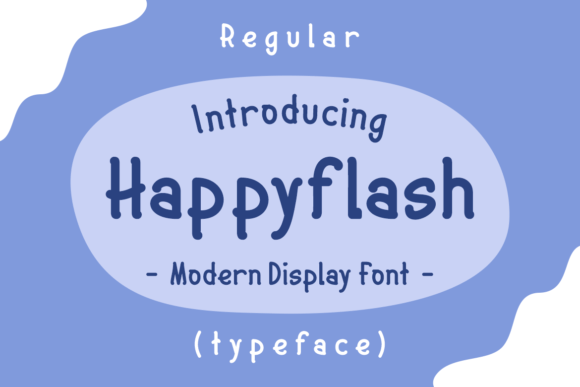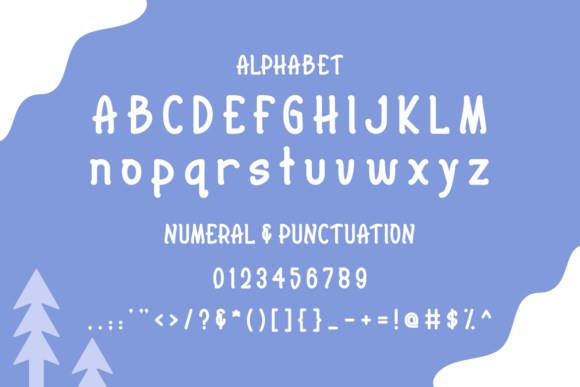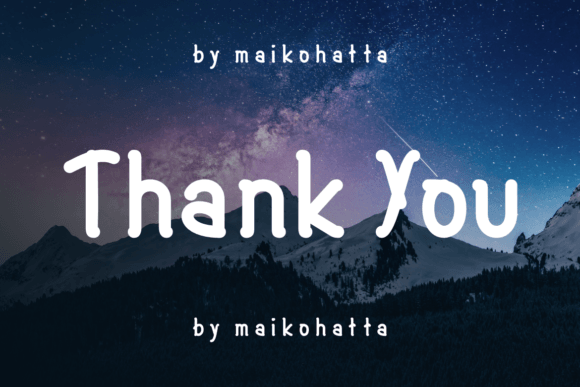
Unlock the Power of Happy Moments with Fonts
You know that moment when you’re working on a design project, and everything just comes together? The colors, the shapes, the text – it all feels like magic. But let’s be real, sometimes the magic can be lost in a dull, generic font. That’s where the Happyflash Font comes in, a fun and cool display font that’s guaranteed to elevate your creations and bring a smile to your face.
Whether you’re designing a poster, a logo, or a social media graphic, the Happyflash Font is the perfect addition to your font library. Its playful and modern feel makes it versatile and adaptable to any topic or theme, ensuring that your designs stand out from the crowd. With the Happyflash Font, you’ll be able to infuse your work with personality and style, making it a valuable asset for any designer looking to take their creations to the next level.
Happyflash Font Key Features
- Font Family: Happyflash is a sans-serif font family with a unique, playful design.
- Unique Characteristics: Happyflash features a distinctive, rounded design with a subtle flair, giving it a friendly and approachable feel.
Happyflash Font Review
Overall, I have mixed feelings about the Happyflash Font. On one hand, there are some great features that make it a good choice for certain projects. ✨ For instance, the font has a playful, energetic vibe that’s perfect for creating fun and upbeat designs. It also comes in a wide range of weights and styles, making it easy to customize for different applications.
The font also has a lot of personality, with some really interesting and unique characters that can add a lot of visual interest to a design. ✨ Additionally, the font is highly legible, even at small sizes, making it a great choice for digital designs where text needs to be easily readable.
However, there are some limitations to the font that might make it less suitable for certain projects. ⚠️ For one, the font can be a bit over-the-top at times, which might not be suitable for more formal or professional designs. Additionally, the font is not as comprehensive as some other fonts, with limited language support and no bold or italic variations.
Overall, I would say that the Happyflash Font is a good choice for projects that need a fun and energetic vibe. While it has some limitations, it’s a great option for designers who want to add a bit of personality to their designs.
- ✨ Playful, energetic vibe
- ✨ Wide range of weights and styles
- ✨ Highly legible
- ⚠️ Can be over-the-top at times
- ⚠️ Limited language support
- ⚠️ No bold or italic variations
Tips for Getting the Most Out of Happyflash Font
Here are some tips to help you get the most out of Happyflash Font:
- Use Happyflash Font in bold or italic to add emphasis to your text.
- Combine Happyflash Font with other fonts to create a unique and eye-catching design.
Here are some common use cases for Happyflash Font:
- Logo design: Happyflash Font is perfect for creating bold and eye-catching logos.